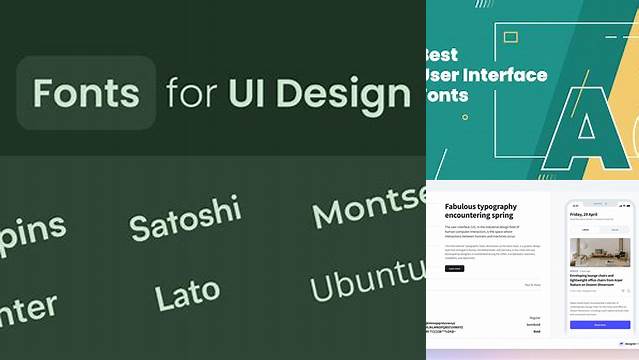
Best Fonts For UI Design: A Comprehensive Guide
Hey everyone! Designing a user interface (UI) is like building a house; you need a strong foundation, and in the digital world, that foundation starts with the right fonts. Choosing the perfect fonts for UI design can make or break the user experience. It’s not just about picking something that looks pretty; it’s about readability, accessibility, and how well the font complements the overall design. This guide is going to walk you through everything you need to know about selecting the best fonts for UI design, ensuring your interfaces are both beautiful and functional. So, grab your favorite beverage, get comfy, and let's dive into the wonderful world of typography!
H2: Understanding the Importance of Typography in UI Design
Alright, guys, before we jump into specific font recommendations, let's talk about why typography is so darn important in UI design. Think about it: text is everywhere! From the menus and buttons to the body of your content, fonts for UI design are the primary way users interact with information. Poor typography can lead to a frustrating and confusing experience, making users bounce off your site or app faster than you can say “pixel perfect.”
Typography sets the tone. A clean, modern font can convey a sense of professionalism and trustworthiness, while a playful font might be better suited for a children's app or a website with a more casual vibe. The right font choices can immediately communicate your brand's personality and values. Imagine seeing a website about luxury cars using a Comic Sans-esque font. Doesn't quite fit, right?
Readability is king. This is where the rubber meets the road. The best fonts for UI design are those that are easy on the eyes. Consider factors like font size, line height, and letter spacing. You want users to be able to effortlessly scan and digest information. Think about how people use websites and apps; they're often multitasking, skimming, and quickly searching for what they need. Your fonts need to work with this behavior, not against it. Choosing fonts that are difficult to read, especially at smaller sizes, will lead to user fatigue and a negative experience.
Accessibility matters. Always keep accessibility in mind! Choose fonts that are legible for users with visual impairments. This means considering things like the weight of the font, the contrast between the text and the background, and avoiding fonts with overly intricate or decorative features. The goal is to create a user interface that is usable and enjoyable for everyone, regardless of their abilities. The best fonts for UI design are those that cater to a wide audience. Good typography is inclusive typography!
Consistency is key. Once you've chosen your fonts, stick with them! Maintaining a consistent typography system across your entire UI helps create a cohesive and professional look. Consistency also aids in user recognition and navigation. Users will quickly learn to associate certain font styles with different types of information, making your interface more intuitive. A well-executed typography system guides the user through the content, making it easier for them to find what they need. Overall, understanding the importance of fonts for UI design is fundamental to creating a successful and user-friendly interface. Let's now delve into specific font families and best practices.
H2: Exploring Serif Fonts for UI Design: Pros and Cons
Let's kick things off by exploring serif fonts! These fonts are characterized by the little strokes, or serifs, at the end of the letters. Think of Times New Roman or Georgia. For many years, serif fonts were the go-to choice for print, but their role in UI design is a little more nuanced. Are fonts for UI design with serifs worth considering?
Pros of using serif fonts. Serif fonts can add a touch of elegance, tradition, and sophistication to your design. They often feel more classic and formal, which can be perfect for certain brands and contexts. One of the biggest advantages of serifs is their readability, especially in long-form text. The serifs can help guide the eye across the page, making it easier to read large blocks of text. For certain content-heavy websites or applications, using a serif font for body text can significantly improve the user's reading experience.
When to use serif fonts in UI design. Serif fonts are great for headings, particularly if you want to convey a sense of authority or history. They can also work well for body text in articles or blogs, where the focus is on reading comprehension. Try using them sparingly, though. Too much serif can feel overwhelming in a digital interface. Consider a serif font for a headline, and then pair it with a clean sans-serif font for the body text. This combination provides a nice visual balance.
Cons of using serif fonts. The biggest challenge with serif fonts is their readability at smaller sizes and on screens with lower resolutions. The serifs can become blurry and difficult to distinguish, which can make it hard for users to read the text. If you are designing for mobile devices or interfaces where text will be displayed at small sizes, you should proceed with caution. Serif fonts can also feel less modern and clean compared to sans-serif fonts, so they might not be the best choice for all types of projects. Think about the device your target user will use, and make your font choices accordingly.
Examples of good serif fonts for UI. Some great serif font options include: Georgia (designed specifically for screen readability), Merriweather (a popular open-source option), and Playfair Display (a stylish choice for headings). But seriously, test them out on the devices you're targeting. It is crucial to check the legibility of fonts for UI design with serifs on the devices your audience uses. Don't just take my word for it; test, test, test!
H2: The Appeal of Sans-Serif Fonts in UI Design
Alright, let's switch gears and talk about sans-serif fonts. These are fonts that do not have serifs—those little decorative strokes at the ends of the letters. Sans-serif fonts are generally considered the workhorses of UI design and are super popular for a good reason. What makes fonts for UI design with a sans-serif style so appealing?
Pros of using sans-serif fonts. Sans-serif fonts are known for their clean, modern, and minimalist aesthetic. They often feel more approachable and are generally easier to read on screens, especially at smaller sizes. Their simplicity allows the content to take center stage, which is great for creating a user experience focused on clarity and ease of use. Sans-serif fonts are also very versatile; they work well in a wide range of contexts, from websites and apps to digital documents and presentations.
When to use sans-serif fonts in UI design. Honestly, pretty much everywhere! Sans-serif fonts are the perfect choice for body text, headings, buttons, navigation menus, and pretty much any other element of your UI. They work especially well for interfaces that need to be highly readable and user-friendly. Their modern feel makes them a great fit for tech companies, startups, and any brand aiming for a contemporary look. You can't really go wrong with sans-serif fonts for UI design if you prioritize readability and a clean aesthetic.
Considerations when using sans-serif fonts. While generally highly readable, some sans-serif fonts can feel a bit sterile or lack personality. It's important to choose a font that reflects your brand's identity. Some sans-serif fonts are also very similar to each other, so careful selection is needed to stand out. Choosing a unique and memorable font is crucial to set your UI apart. Ensure that the font's weight, size, and letter spacing are well-suited for the specific application to maintain readability.
Great examples of sans-serif fonts for UI. Some of the most popular and effective sans-serif fonts include: Open Sans (a highly readable and versatile choice), Roboto (Google's go-to font for Android), Montserrat (a stylish and modern option), and Helvetica Neue (a classic that has stood the test of time). Take some time to research different sans-serif fonts for UI design. Don't settle on the first one you see; explore all the possibilities.
H3: Choosing the Right Font Weight
Font weight is crucial to making sure the UI design is perfect. The best fonts for UI design are those that use different weights effectively. What you choose for weight is based on design. The different font weights play key roles in establishing visual hierarchy and improving readability.
Understanding font weights. Each font family has different weights, like light, regular, bold, and extra bold. These weights change the thickness of the font, impacting how it looks. For example, you might use a bold weight for headings to make them pop, and a lighter weight for body text to make it easier to read.
Using font weights for hierarchy. The proper use of font weight can help you establish a clear visual hierarchy. Use bold fonts for key elements like headings and calls to action. Lighter weights can be used for secondary information. This hierarchy helps users quickly understand the most important information on the page. Think of it as a visual guide that directs users to what matters most.
Font weight and readability. Lighter font weights can sometimes be harder to read, especially in smaller sizes. Heavier weights might become overpowering. Balance is key. Pick weights that complement each other and improve overall readability. Testing different combinations is critical to achieving perfect visual clarity.
Specific weight recommendations. For headings, a bold or extra bold weight often works best. For body text, a regular or semi-bold weight is typically ideal. Make sure to test how different weights look on various devices and screen sizes. Remember, the best fonts for UI design include well-considered weights that add to overall usability.
H3: Font Size and Scale for UI
Font size is an absolutely vital part of fonts for UI design. Finding the right font size helps users grasp information faster and improves the user experience. A well-thought-out scale creates a sense of balance and professionalism.
Establishing a baseline font size. Determine a baseline font size (e.g., 16px) for your body text. This size provides a readable starting point for most users. This baseline also serves as a foundation to create a smooth and consistent visual experience.
Creating a font size scale. Design a scale of font sizes to support headings, subheadings, and other important text elements. Popular scales include the modular scale, which uses ratios (like the golden ratio) to define sizes. The goal is to have consistent sizes and visual relationships. A well-made scale guarantees a harmonious layout.
Font size and accessibility. Always consider users with visual impairments when determining font sizes. Ensure that your UI offers adequate contrast and allows users to change font sizes as needed. Proper accessibility is one of the most crucial parts of any design plan. Testing your design for accessibility is a must.
Testing font sizes. Put different font sizes to the test across multiple devices and screen resolutions. Make sure the font sizes are easy to read without sacrificing visual appeal. This testing phase ensures that your design is as user-friendly as possible on all devices. The most effective fonts for UI design utilize font sizes to maximize their impact.
H3: Line Height and Letter Spacing for Readability
Line height (leading) and letter spacing (tracking) play crucial roles in the readability of fonts for UI design. These settings control the vertical space between lines of text and the horizontal space between letters, respectively. They are very important to overall readability.
Line height and reading experience. The right line height makes it easier for the eyes to follow the text. Too little space will make it difficult to distinguish between different lines, while too much space can make the text feel fragmented. Experiment with different line heights to find the optimal setting for your chosen font and text size. Proper line height is critical to reading comprehension.
Letter spacing and readability. Letter spacing impacts how easily we read each word. Appropriate letter spacing makes text more legible. Too much spacing and it makes text look scattered, while too little can make words hard to read. Letter spacing also varies for different fonts, so some adjustment is needed to get it right. Well-adjusted letter spacing enhances readability, which is particularly helpful for longer blocks of text.
Optimizing for different content types. Body text requires different line heights and letter spacing compared to headings or captions. Longer paragraphs usually need more line height to avoid feeling crowded. Shorter text can often have tighter spacing. The best fonts for UI design use these adjustments to make the most impact.
Testing and adjustments. Always test line height and letter spacing on different screen sizes and devices. Make sure the text remains clear and easy to read. Always check if adjustments are needed for various devices and screen resolutions. Your goal should be to optimize your design to have great readability.
H3: Font Pairing for UI Design: Tips and Best Practices
Picking the right fonts for UI design involves more than just selecting individual fonts. Font pairing, which involves choosing a combination of fonts that work well together, is important. Pairing fonts well can enhance your design's overall appeal, while poor pairings can create a visual mess.
Understanding font pairing principles. One of the core ideas is that font pairs should either complement each other or provide contrast. They can share similarities in form or weight to create visual harmony, or you can use different fonts to give the design dimension.
Pairing serif and sans-serif fonts. A common strategy is combining a serif font for headings with a sans-serif font for body text. The contrast provides visual interest and enhances the reading experience. This balance makes the design more engaging. This combination is generally regarded as clean and professional.
Pairing sans-serif fonts. You can use a combo of sans-serif fonts. Using two different sans-serif fonts can work well if they complement each other. Consider pairing a bold, rounded font with a more geometric sans-serif for a modern look. Always ensure that the typefaces have similar weights and styles for a streamlined design.
Font pairing tools. Several online tools make font pairing easier. These tools show different combinations, helping you explore and find the perfect options for your projects. Using these tools can make your life a lot easier. Testing the combinations is a must to ensure your final choices meet your needs.
Testing font pairings. After you decide on font pairings, test them. This includes putting them into action to see how they work in different contexts. Making sure they enhance readability, provide a visual appeal, and align with the brand is essential. The best fonts for UI design pairings make a noticeable improvement in the user experience.
H3: Web Fonts vs. System Fonts: What's the Difference?
When choosing fonts for UI design, you'll bump into two main categories: web fonts and system fonts. Understanding the differences between these helps you make informed decisions that affect both your design and user experience.
Web fonts. These fonts are hosted on a web server and downloaded to the user's browser when they visit your site. They offer great design flexibility, because you can use any font you choose. This flexibility allows you to express your brand's identity. Web fonts improve consistency by ensuring that users see your design with the font you intended.
System fonts. These fonts are pre-installed on a user's device. System fonts provide faster loading times, because the browser doesn't need to download them. This reduces latency. The downside is that you're limited to fonts that are already on users' computers. This can lead to less design control.
Pros and cons. Web fonts provide a wider selection of fonts and better consistency. On the flip side, they can increase loading times, impacting performance. System fonts provide speed and efficiency. You lose design control because you can't choose your own fonts. Balancing these pros and cons is essential.
Choosing the right approach. Consider your project's needs when making your decision. If design consistency is critical and you want to stand out, web fonts are usually the way to go. If speed is a priority, and you want to keep the website lightweight, system fonts might be better. Think about your audience, design needs, and performance goals when selecting your font type. Choosing the right option ensures your project excels in performance and design. The proper choice of fonts for UI design depends on your goals.
H3: Google Fonts: A UI Designer's Best Friend
For a UI designer, Google Fonts is basically a treasure trove! This vast library provides a massive collection of free, open-source fonts, making it a game-changer for fonts for UI design. You can find a ton of great fonts here.
Benefits of using Google Fonts. One of the biggest advantages of Google Fonts is that it's free and open-source. This gives you access to a ton of high-quality typefaces. This affordability opens up options for projects of any budget. The fonts are easy to use on any website, and they're optimized for web use. Plus, it makes it simple to incorporate custom typography into your projects.
Popular Google Fonts for UI design. Some fan favorites include: Open Sans, Roboto, Montserrat, Lato, and Poppins. These fonts offer great readability and work across various applications. They also offer great style. Experimenting with these fonts helps in finding the perfect fit for your projects.
Implementing Google Fonts. Google Fonts are simple to use. You can add them to your website or app by linking to the Google Fonts CDN. You can also download the fonts and host them yourself for more control. Either way, it's a simple way to add visual impact to your work.
Performance tips. Keep in mind that using too many web fonts can affect website loading times. Choose only the font styles and weights you need to reduce the impact. Balancing style and performance is key. Google Fonts offers a great balance of design and usability. Google Fonts is definitely one of the best fonts for UI design tools.
H3: Font Licensing: Understanding the Rules
When working with fonts for UI design, understanding font licensing is essential. Font licensing defines how you can use a particular font. Not knowing the licensing rules can lead to legal problems, so let's break it down.
Different types of font licenses. There are different types of licenses. Some fonts are available under a free license, others require a one-time purchase, and some are subscription-based. The license details the terms for commercial and personal use. Make sure you know the type of license you are dealing with.
Commercial vs. personal use. Commercial licenses grant you the right to use a font for profit-making purposes. Personal use licenses often restrict you to non-commercial projects. Always make sure that your license meets your needs. For a commercial project, ensure you're using a license that permits commercial use.
Webfont licenses. Many fonts require a special webfont license for use on a website. This license permits the embedding of the font. This licensing prevents copyright problems. Webfont licenses are usually tied to the number of page views or website visitors. Be sure to choose the right license level based on your website traffic.
Checking license details. Always check the font's licensing details before using it. This information can be found on the font foundry's website or in the font files themselves. Reading the licensing information is crucial to understanding your responsibilities. Make sure you know what you are signing up for.
H3: Font Accessibility: Designing for Everyone
When it comes to fonts for UI design, font accessibility is incredibly important. Designing with accessibility in mind ensures that your UI is usable for people of all abilities, including those with visual impairments. This is not just about doing the right thing; it can also extend your reach.
Contrast ratios. Ensure that your text has adequate contrast against the background. This makes it easier for users to read the text. Use online contrast checkers to verify that your contrast ratios meet accessibility standards. Following these rules ensures usability.
Font size and readability. Use clear font sizes, especially for body text. Be certain that the text is easy to read on different screen sizes. Keep in mind that mobile users are more common than ever. Use legible fonts for a better experience.
Avoid overly decorative fonts. Avoid fonts with overly intricate or decorative features. These can be difficult to read for users with visual impairments. Stick to clean, simple fonts to ensure your text is easy to understand. Simplicity often improves readability.
Provide options for customization. Consider allowing users to adjust font sizes and other display settings. This customization allows users to personalize their experience. Providing this choice ensures a better and more inclusive experience. The best fonts for UI design are those that consider the audience's needs.
H3: Testing Fonts in Your UI Design
Testing your fonts for UI design is absolutely critical. You should not make the design decisions in a vacuum. You must test them! Testing guarantees that your font choices work well across different devices and user groups, leading to better usability and a great user experience.
Testing on various devices. Test your fonts on multiple devices and screen sizes. Test your UI on phones, tablets, and desktops. Make sure the text looks great on all devices. This ensures consistency and optimal readability. Your users should have a uniform experience across devices.
User testing. Get feedback from real users. Have users test your UI and tell you their thoughts. Ask them about readability and visual appeal. Their feedback helps improve your design. User feedback is essential for finding issues that you may have missed.
Readability testing. Focus on readability during your tests. Make sure the text is easy to read and easy to scan. Ask users if they have any issues. Improving readability improves usability. Use these tests as part of your design. Testing helps verify that your fonts meet your usability goals. The right testing improves the impact of your fonts for UI design choices.
H3: Mobile-First Typography: Adapting Fonts for Mobile Devices
Mobile devices are where people are spending more time now, so mobile-first typography is increasingly important for fonts for UI design. Adapting your fonts for mobile guarantees a great user experience on smaller screens. The mobile experience can make or break an application.
Font size and readability on mobile. Prioritize readability by using font sizes that are easy to read on small screens. Test and adjust font sizes to ensure readability in different contexts. Mobile devices require more attention to detail. Mobile devices have smaller screens so you need to get the font size right.
Line height and letter spacing adjustments. Make sure that line height and letter spacing are suitable for mobile displays. Text may look different on a mobile screen. Mobile-first design will improve your designs greatly. This process ensures that your text doesn't appear cramped or too loose. Adjustments here can make a big difference.
Choosing mobile-friendly fonts. Select fonts that are optimized for mobile. Some fonts are easier to read on mobile devices. Test your fonts on different screen sizes to see how they look. The best fonts for UI design should be optimized for different devices.
Consider touch targets. Ensure that your text elements are large enough to tap. Make sure that touch targets are easily accessible on mobile devices. This will improve the design. Proper design with mobile devices will benefit everyone.
H3: Typography for Buttons and Calls to Action
Buttons and calls to action (CTAs) are key components in UI design. The typography you use can affect their effectiveness. The proper use of fonts for UI design will improve clicks. With clear and concise text, users can easily understand what to do.
Choosing font styles for buttons. Use clear and concise fonts for buttons. Use bold fonts to draw attention. Make sure the buttons have high contrast. Test out the different styles. Remember, you want your users to notice the buttons.
Button size and readability. Ensure that the button text is readable. Make the buttons easily tappable on mobile devices. Button size can make a big impact on how users interact. You should test out button size to be sure of the results.
Font size for button text. Appropriate font sizes should match the overall design of the UI. Make sure your font size is properly sized. Text that's too small may be a problem. You want users to click on the buttons. Make sure your design guides the user.
Consistency in button typography. Maintain a consistent style for buttons across your UI. This will enhance the user experience. The right fonts for UI design will make your designs more successful.
H3: Typography and Branding: Aligning Fonts with Your Brand Identity
Your brand identity is important. With fonts for UI design, your font choices play a crucial part. They provide a visual representation of your brand's personality and values. Selecting the right fonts is a design must.
Understanding brand personality. Define your brand's personality before selecting fonts. Determine your brand's voice and tone. Your font selection should mirror these elements. Your font choice should always reflect your brand.
Matching fonts to brand attributes. Select fonts that match your brand's attributes. If your brand is modern, choose a clean, modern font. If your brand is classic, select a traditional font. Your fonts should perfectly align with your brand. Ensure the design elements are aligned with your brand.
Creating a consistent brand experience. Use fonts consistently across all your brand materials. This can be done on your website, app, and marketing. Consistency builds brand recognition and trust. Consistency helps make your brand more identifiable. Consistency also aids in the user experience. The best fonts for UI design will always align with the brand. Your users will have an improved experience.
H3: Common Font Mistakes to Avoid in UI Design
Even experienced UI designers make mistakes when it comes to fonts for UI design. Avoiding these common errors can significantly improve your design's usability and overall look. Be aware of potential issues and solutions.
Overusing fonts. Don't use too many fonts. Stick to two or three fonts maximum. This improves consistency and prevents a cluttered appearance. Too many fonts can make your design look confusing and unprofessional. Limit the number of fonts you use to create a cleaner design. Avoid unnecessary complications by limiting your choices.
Ignoring readability. Always prioritize readability. Make sure your text is easy to read at all sizes and on different devices. Check font sizes, line heights, and letter spacing to guarantee readability. Test your design on different devices. User feedback will help guide your design process. It is absolutely essential to verify your design.
Poor contrast. Don't make your text difficult to read because of poor contrast. Check the contrast between your text and background. Make sure that it meets accessibility standards. Use contrast checkers to evaluate your design. Low contrast can hinder your user experience. Make sure your design is accessible.
Using fonts that clash. Avoid font combinations that clash. They look bad! Pick fonts that work well together and complement each other. Font pairings are vital to your design. There are a ton of resources online that can help you in this area. These are helpful tools to use when selecting fonts. Make sure you select a font combination that doesn't detract from the design. The best fonts for UI design are carefully chosen to avoid these mistakes.
H3: Typography and User Experience (UX): The Connection
Typography has a huge impact on UX design. The way you use fonts for UI design directly influences user experience. Typography's impact extends beyond the surface. It influences how users interact with your product or design. Make good design decisions.
Typography's role in usability. Clear and readable typography will improve usability. Ensure users can easily scan and grasp your content. Use font size, weight, and spacing effectively. Make your information easy to consume. Focus on the ease of use of your design. A functional UI increases user satisfaction.
Typography and information hierarchy. Use typography to establish a clear information hierarchy. Establish this hierarchy to prioritize important information. Use different font weights and sizes to guide the user's eye. Help your users navigate your design with ease. Improve usability through great design choices. Your design should be easy to understand.
Typography and user engagement. Well-chosen typography improves user engagement. Typography's visual appeal attracts and holds the user's attention. Great typography will improve the users' experience. This will also improve user satisfaction. The right fonts for UI design play a huge role in improving the overall user experience.
H3: Typography in UI Design Trends: Staying Current
UI design is always changing. Design with trends in mind. Trends in fonts for UI design often reflect broader shifts in design aesthetics and user preferences. Keep up with what's trending to stay competitive. Keep in mind that these trends are only guidelines.
Minimalism and clean typography. Minimalist designs continue to be very popular. Clean, simple fonts are a perfect fit. The trend toward simplicity creates a more user-friendly experience. This minimalist style is a timeless classic. Minimalism will always be popular in design.
Variable fonts. Variable fonts are gaining popularity. These fonts offer a flexible design. They allow you to adjust font weights and styles. Variable fonts give designers more control. Variable fonts create dynamic and responsive designs. Variable fonts offer a modern design choice.
Experimentation with display fonts. Designers are using more display fonts. These fonts add character and visual appeal to designs. Display fonts are used for headings and titles. Experimenting with display fonts can improve your design. Choosing display fonts that align with your brand is a great option.
H3: Resources and Tools for Choosing Fonts in UI Design
Several resources and tools are available. You should be aware of fonts for UI design resources and tools. The right tools can streamline your font-choosing process and improve your design. Always learn new things about design.
Font libraries. Google Fonts and Adobe Fonts are great resources. These libraries offer many options for UI designers. They have a wide variety of fonts. There is a ton of fonts available for designers to choose from.
Font pairing tools. Use tools such as FontJoy and Typewolf to pair fonts. These tools are great for finding font pairings. They help you discover combinations of fonts. Experiment with different pairings. These tools can really help you with your designs.
Online typography guides. Sites like Typewolf and Thinking with Type provide guides. These guides give you best practices. Online guides are great for learning more about design. Use these guides to improve your skills. Resources are always available to help. The best fonts for UI design depend on the design itself.
H3: The Future of Fonts in UI Design: Predictions and Innovations
Predicting the future is tricky, but it's still good to consider. The future of fonts for UI design will be shaped by technological developments, changing user preferences, and new design approaches. Here are some predictions.
Advanced variable fonts. Variable fonts will become more sophisticated. There will be more flexible design options. They will allow for even more control. Variable fonts will become increasingly common. It is a sign of where design is headed.
AI-powered font recommendations. AI may begin assisting font selection. AI can generate recommendations based on the context. AI-powered tools can analyze your design and suggest fonts. These tools can save designers time. AI tools may revolutionize the design process. AI will change a lot.
Personalized typography. User preferences will drive personalization. There will be adjustable font settings based on user needs. The future of design will be more about user experience. The focus will be on what users want. Designers will be working to ensure the best user experience. The best fonts for UI design will be adaptable.